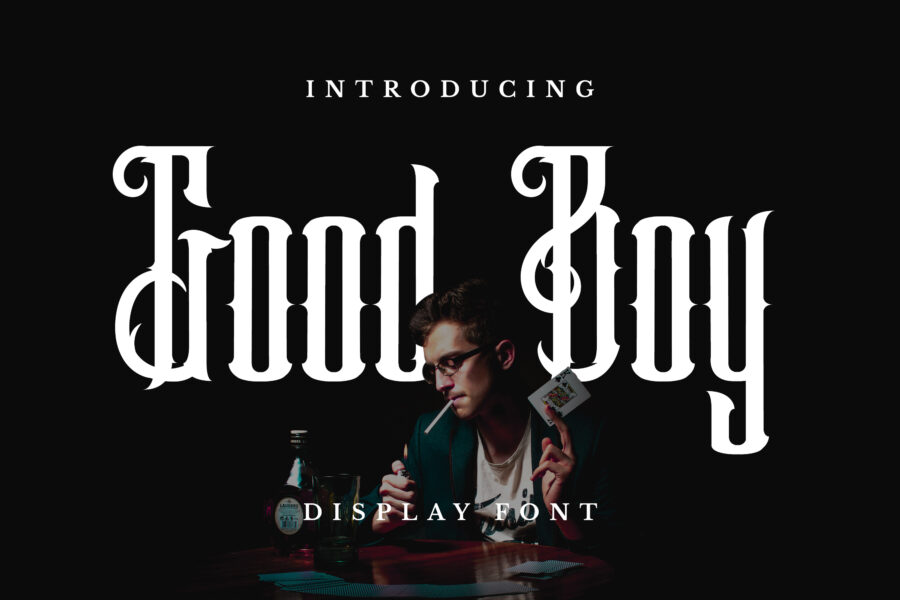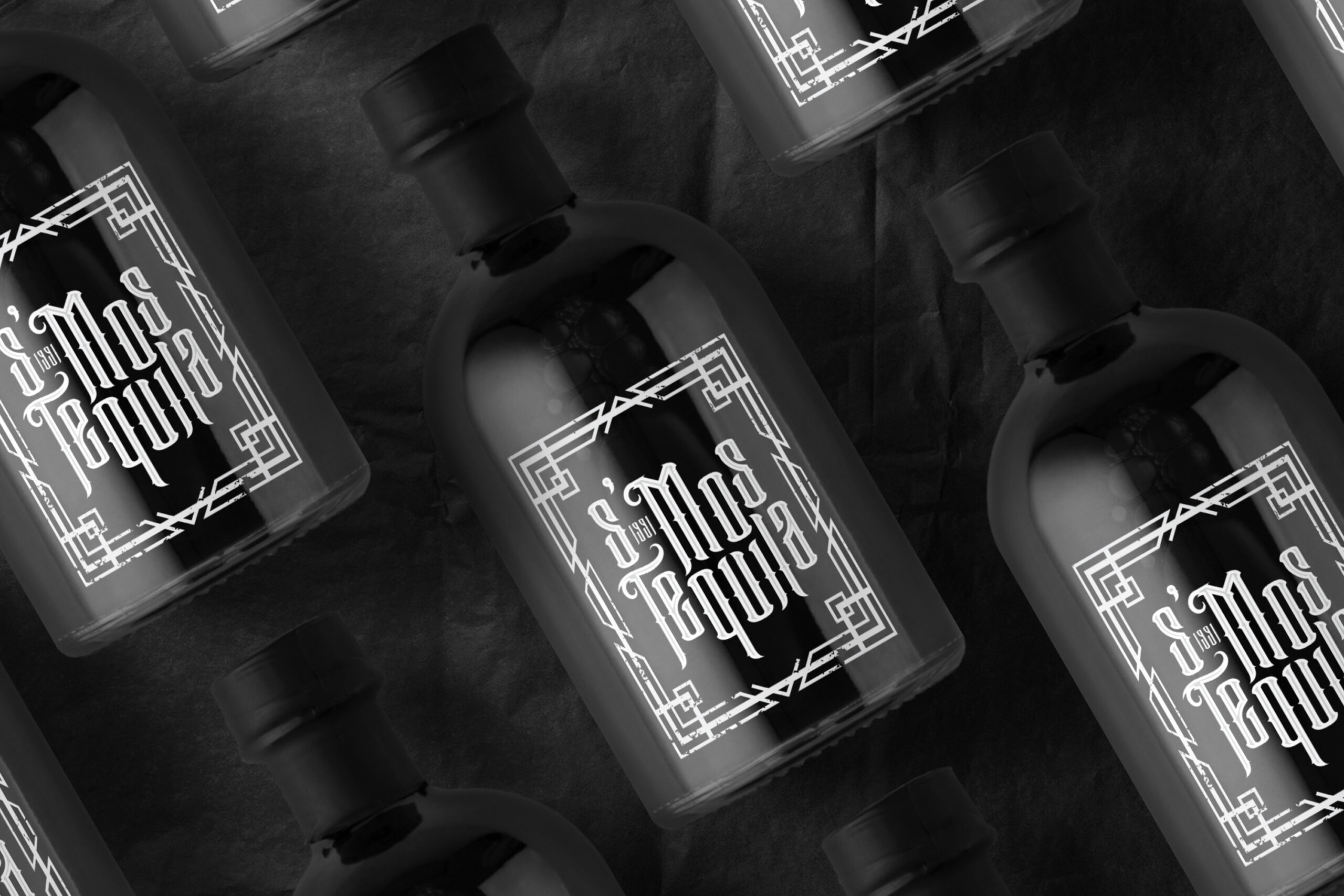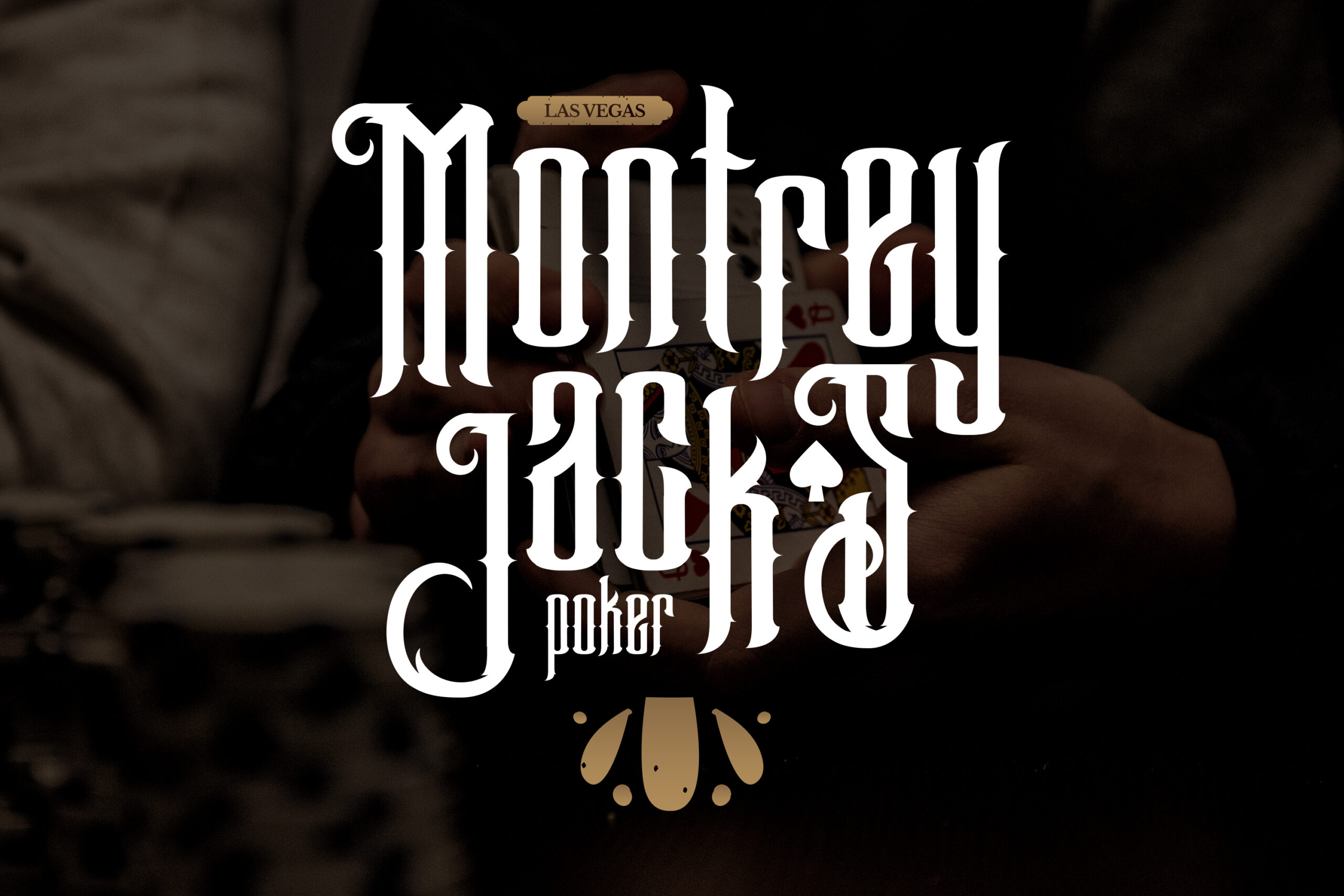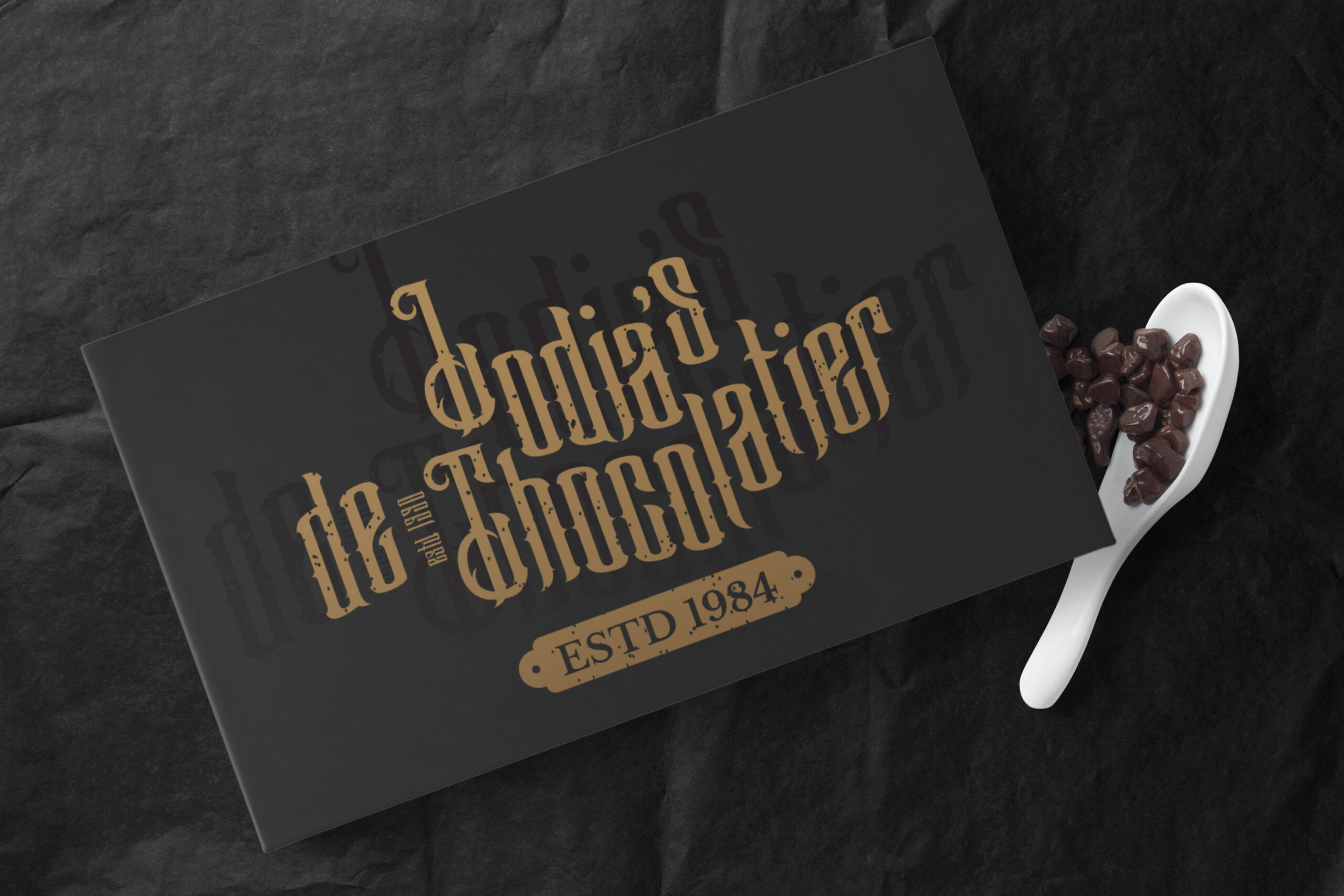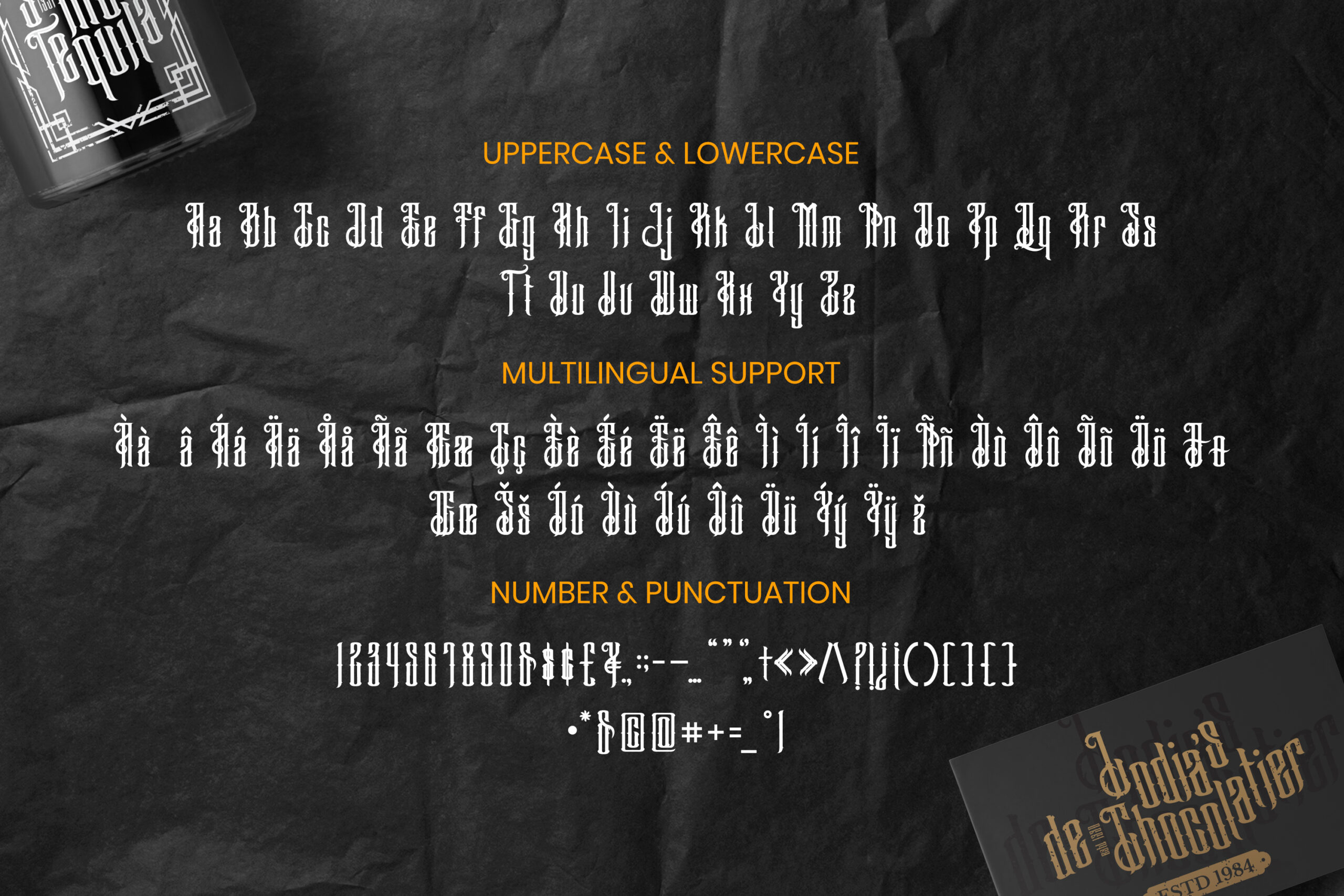
Introducing Good Boy, a bold and dramatic blackletter display font that exudes vintage charm with a rebellious edge. Its tall, narrow letterforms and ornamental gothic strokes bring a powerful, classic presence, perfect for projects that demand attention and authority. Whether you’re designing for liquor branding, poker night posters, or retro packaging, Good Boy adds a touch of heritage and bold character.
With full uppercase and lowercase sets, multilingual support, and a wide range of punctuation, Good Boy offers flexibility while maintaining its distinctive style. It’s an excellent choice for editorial designs, label work, logos, and any visual identity seeking a strong and confident typographic voice with a nod to old-world elegance.